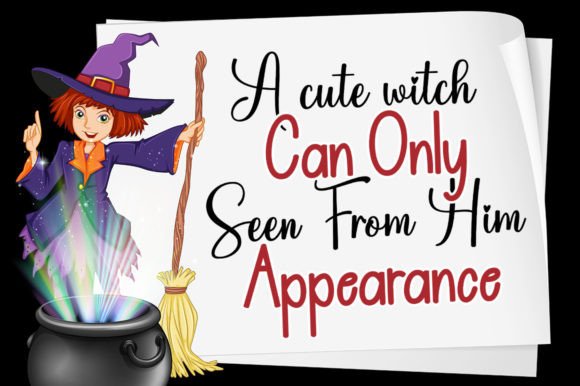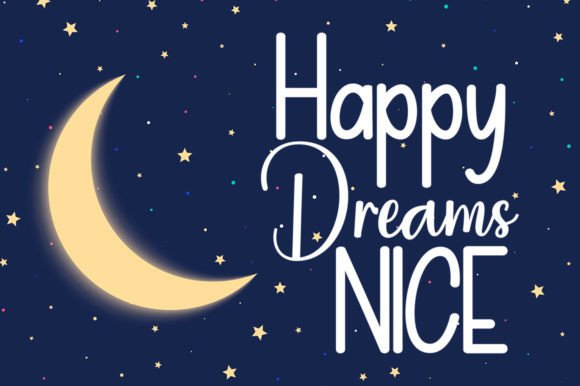
Butter Pumpkin Duo Font
Butter Pumpkin is a fun and playful handwritten font duo (script and sans). Add it to each of your autumnal projects and you will love the results!